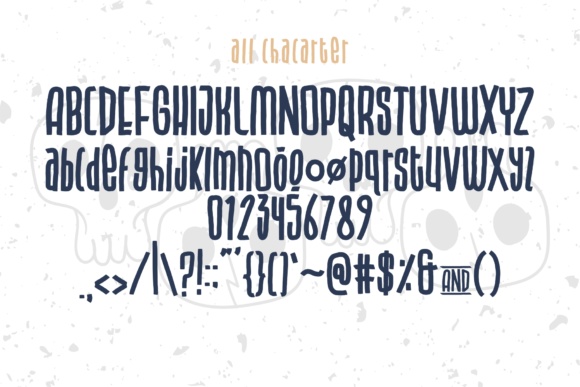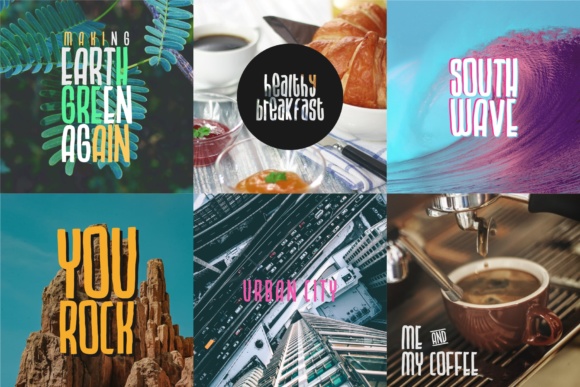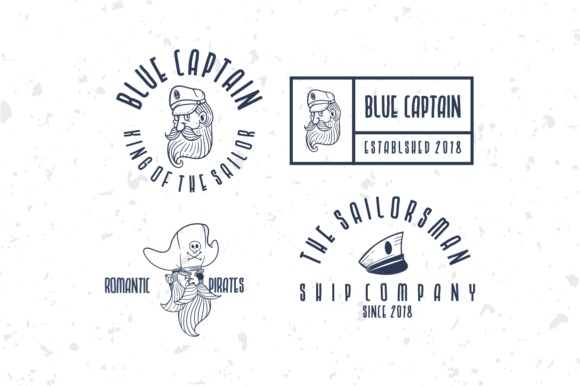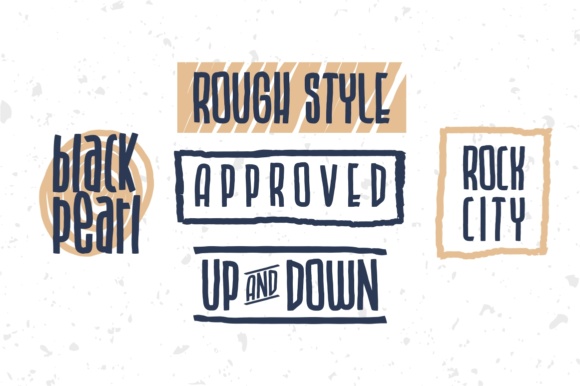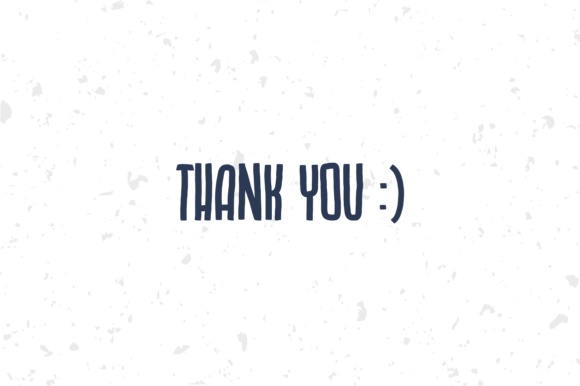
The Blue Captain Font: A Rough, Masculine Style for Your Creative Projects
Have you ever been in the middle of a design project, and suddenly, you just can’t seem to find the right font? I recall a particularly frustrating experience while working on a branding project for a sailing company. The client wanted a font that exuded a sense of adventure, masculinity, and playfulness. That’s when I stumbled upon the Blue Captain font. With its rough, masculine style, it was love at first sight! ✨
• ✅ The Blue Captain font has a unique, rough texture that gives it a distinctive character.
• ✅ It’s incredibly versatile and can be used for a wide range of design projects, from Instagram stories to logos, posters, and headers.
• ✅ The font comes with a bonus vector element featuring sailors and pirates, which can add an extra layer of creativity to your designs.
• ✅ The font is easy to read, even at smaller sizes, making it perfect for body text or captions.
While the Blue Captain font is amazing, it’s not perfect. Here are a few things to keep in mind: 🤔
• ⚠️ The font’s rough texture can make it a bit challenging to use for very small text sizes or for designs that require a high level of precision.
• ⚠️ Some of the font’s characters, such as the lowercase letters, can be a bit inconsistent in terms of width and spacing.
The Backstory Behind the Blue Captain Font
The Blue Captain font was inspired by the golden age of piracy and the sense of adventure that comes with it. The font’s creator wanted to capture the spirit of the high seas and the rugged, masculine style of the sailors and pirates who ruled the waves. 🌊
Q: What type of designs is the Blue Captain font best suited for?
A: The Blue Captain font is perfect for designs that require a sense of adventure, masculinity, and playfulness, such as logos, posters, headers, and Instagram stories.
Q: Is the Blue Captain font easy to read?
A: Yes, the Blue Captain font is designed to be easy to read, even at smaller sizes, making it perfect for body text or captions.